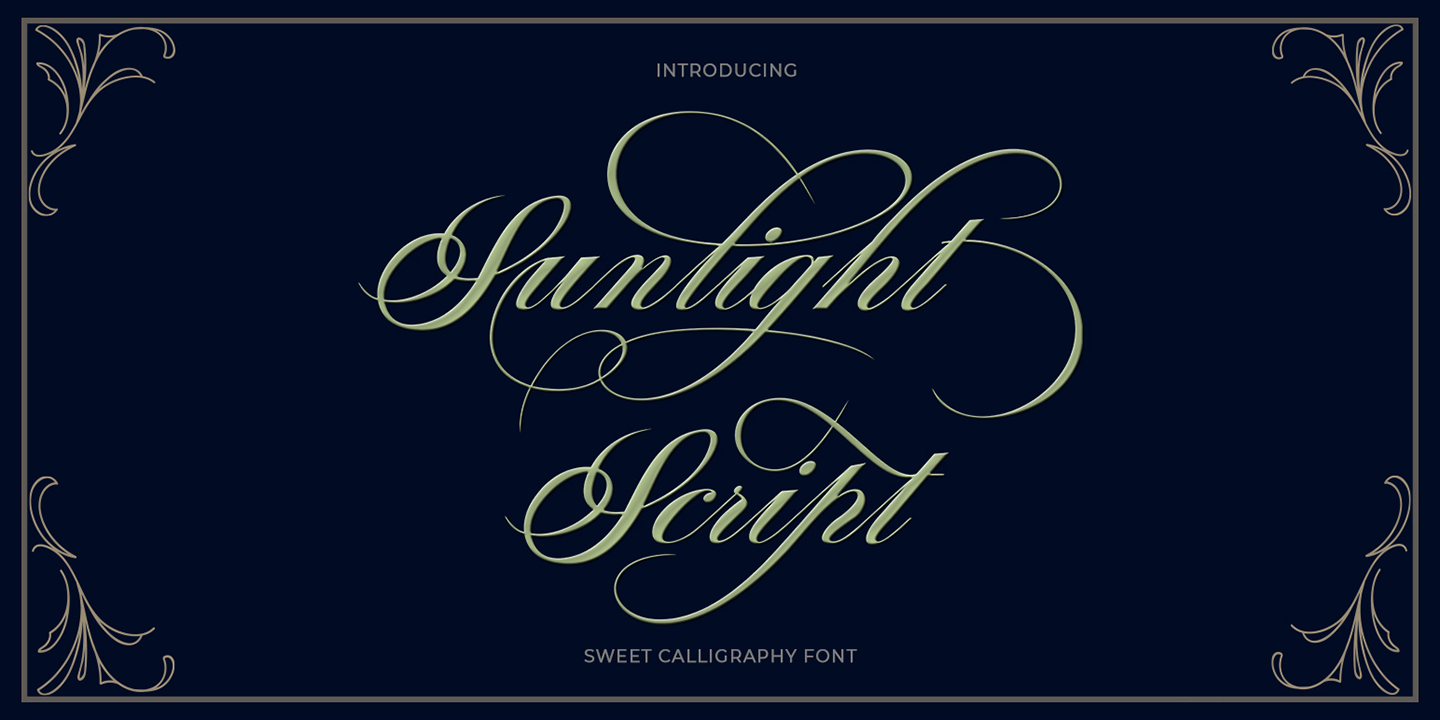
Sunlight Script Font excels in bright design applications including summer vacation branding, tropical resort communications, solar energy company materials, vitamin and wellness product packaging, bright lifestyle magazines, cheerful café signage, sunny event invitations, outdoor wedding stationery, sunshine-themed children's products, and optimistic lifestyle campaigns. This glowing typeface brings solar warmth to uplifting design projects.
What makes Sunlight Script Font truly exciting is its perfect capture of golden hour magic with flowing letterforms that evoke warm sunbeams and radiant energy through graceful script construction. The font features luminous curves with natural rhythm and bright flourishes that create feelings of joy, vitality, and sunny optimism. Its radiant personality and warming character make it ideal for brands celebrating positive energy, wellness living, and audiences who appreciate life's bright moments, natural light therapy, and the uplifting power of sunshine that brings happiness and vitality.
The Sunlight Script Font family typically includes Regular weight with potential decorative swashes and luminous alternates that enhance its sunny character. These bright options provide designers with complete solar styling while maintaining the font's distinctive radiant elegance and optimistic presentation across various sunshine applications and wellness contexts.
Whether you're developing wellness branding, creating summer campaigns, or designing uplifting marketing materials, Sunlight Script Font Free Download delivers the solar authority and radiant sophistication that sunshine-focused projects require. Its exceptional brightness and warming appeal make it invaluable for designers working with wellness brands, vacation companies, and positivity-focused organizations requiring typography that celebrates natural light, vitamin D benefits, and the universal human need for sunshine that brings energy, happiness, and the golden warmth that makes every day brighter and more beautiful.